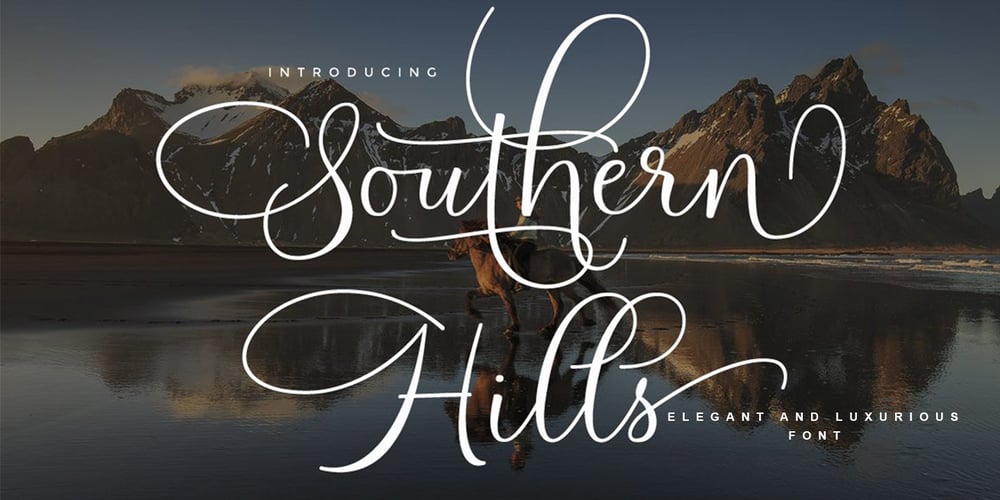
Southern Hills Font Family was designed by Kurniadi Saputra and published by Cooldesignlab. Southern Hills contains 1 styles and family package options. Southern Hills calligraphy an elegant new font! This font is made especially for those of you who need a touch of elegance to design your next project with perfect and amazing results.Southern Hills is equipped with lines that are perfect for use for various purposes. Such as titles, signatures, logos, correspondence, wedding invitations, letterhead, sign boards, labels, bulletins, posters, badges, Branding, Greeting Cards, etc. So beautiful on invitations like greeting cards, and more !!Southern Hills includes alternative glyphs and stirs beautifully in fonts including set styles, ligatures etc. The Open Type feature can be accessed by using Open Type savvy programs such as Adobe Illustrator CS, Adobe Indesign & CorelDraw X6-X7 and Microsoft Word.And this font has provided a unicode PUA (special code font). so all alternative characters can be easily accessed in full by craftsmen or designers.If you do not have a program that supports OpenType features such as Adobe Illustrator and CorelDraw X Version, you can access all alternative glyphs using Font Book (Mac) or Character Map (Windows).If you have questions, don’t hesitate to contact me via Gmail: Cooldesignlab@gmail.com.Thank you and love to design ๐